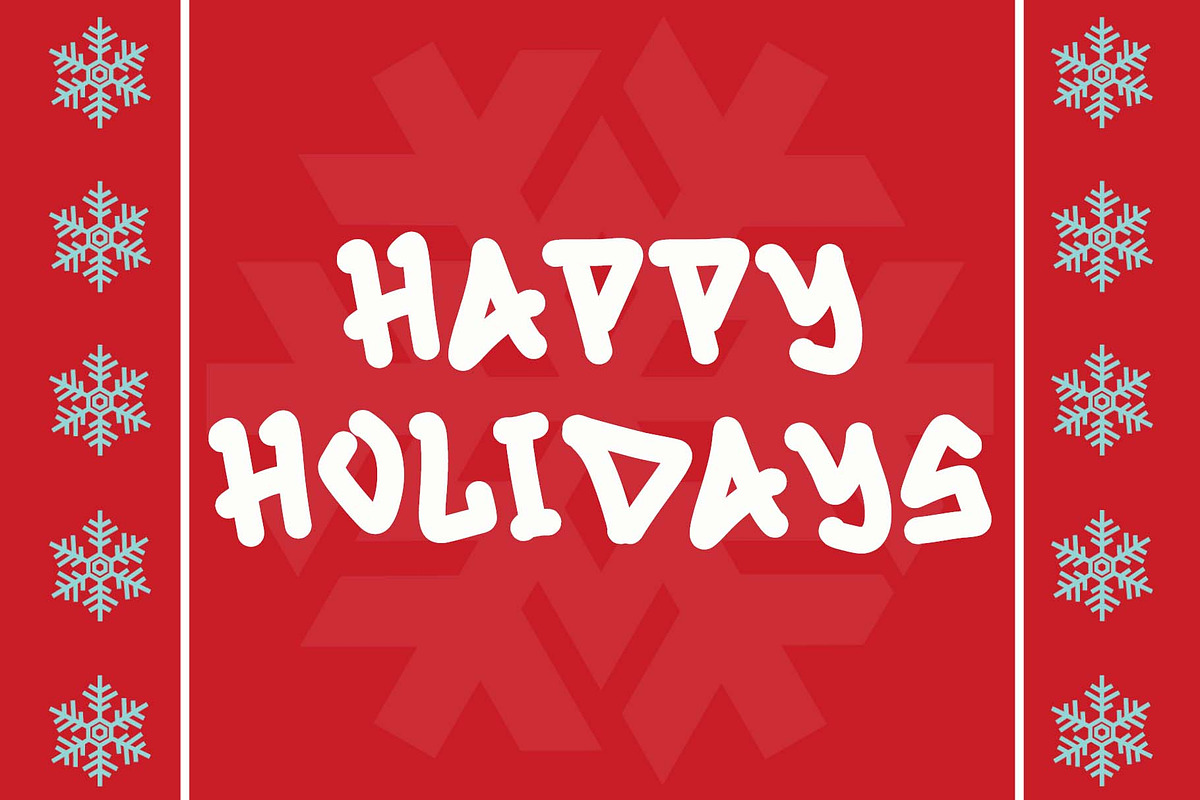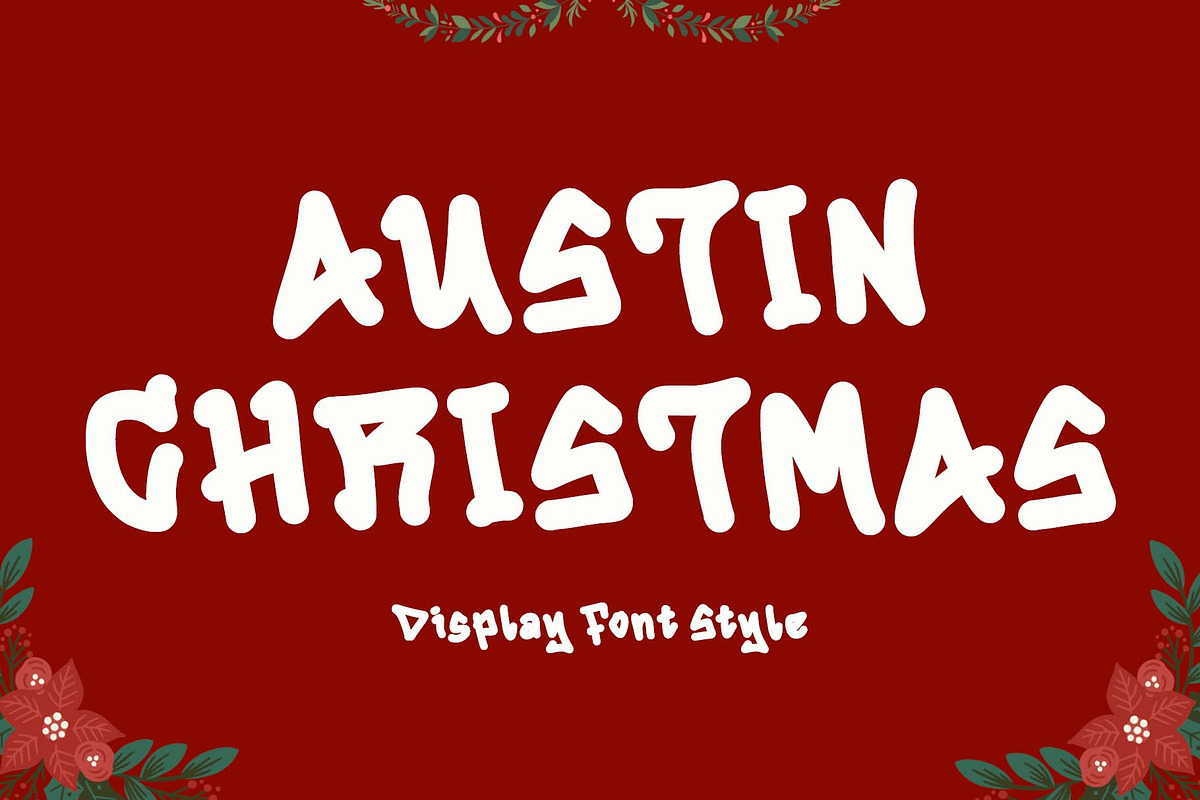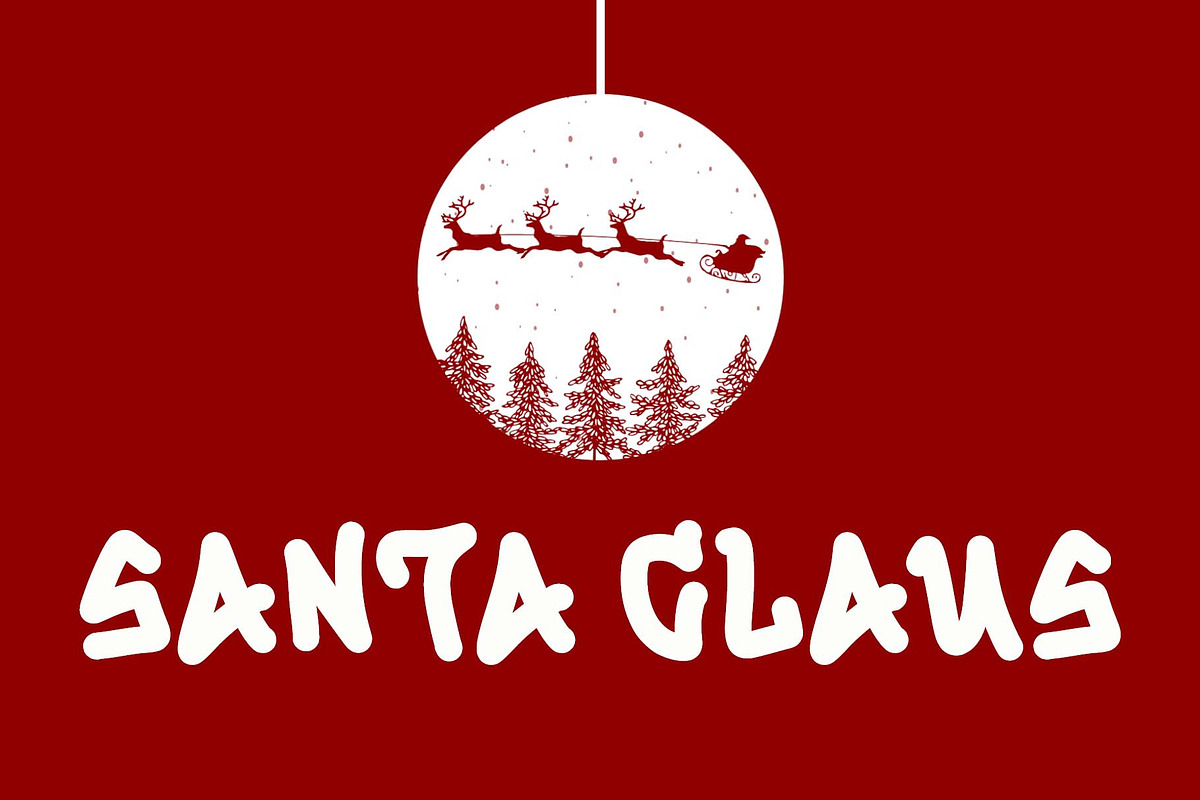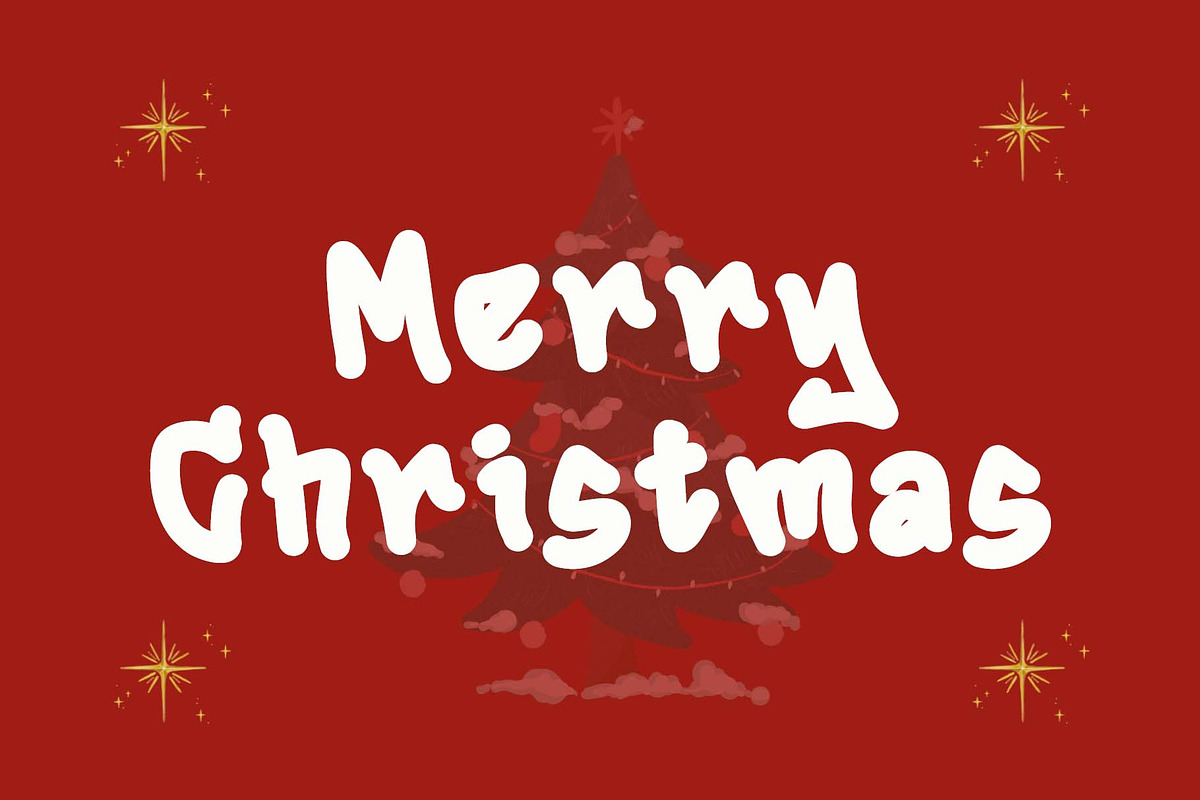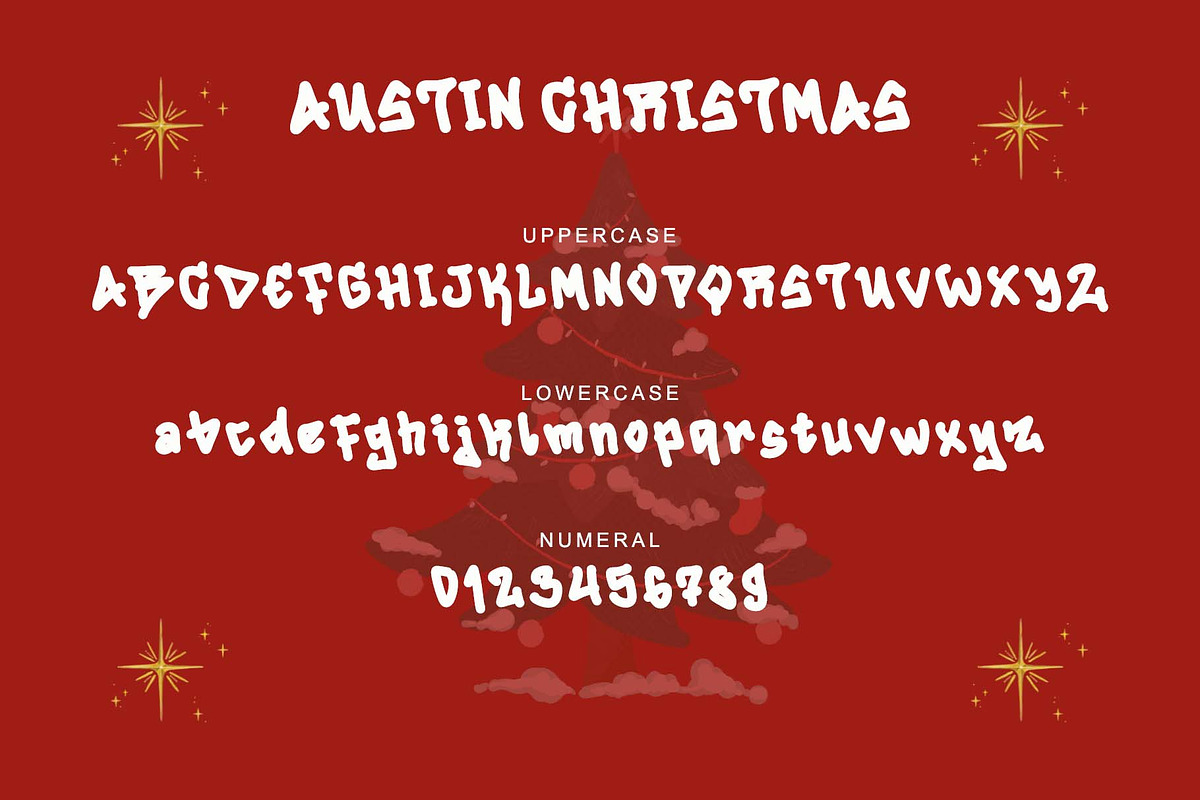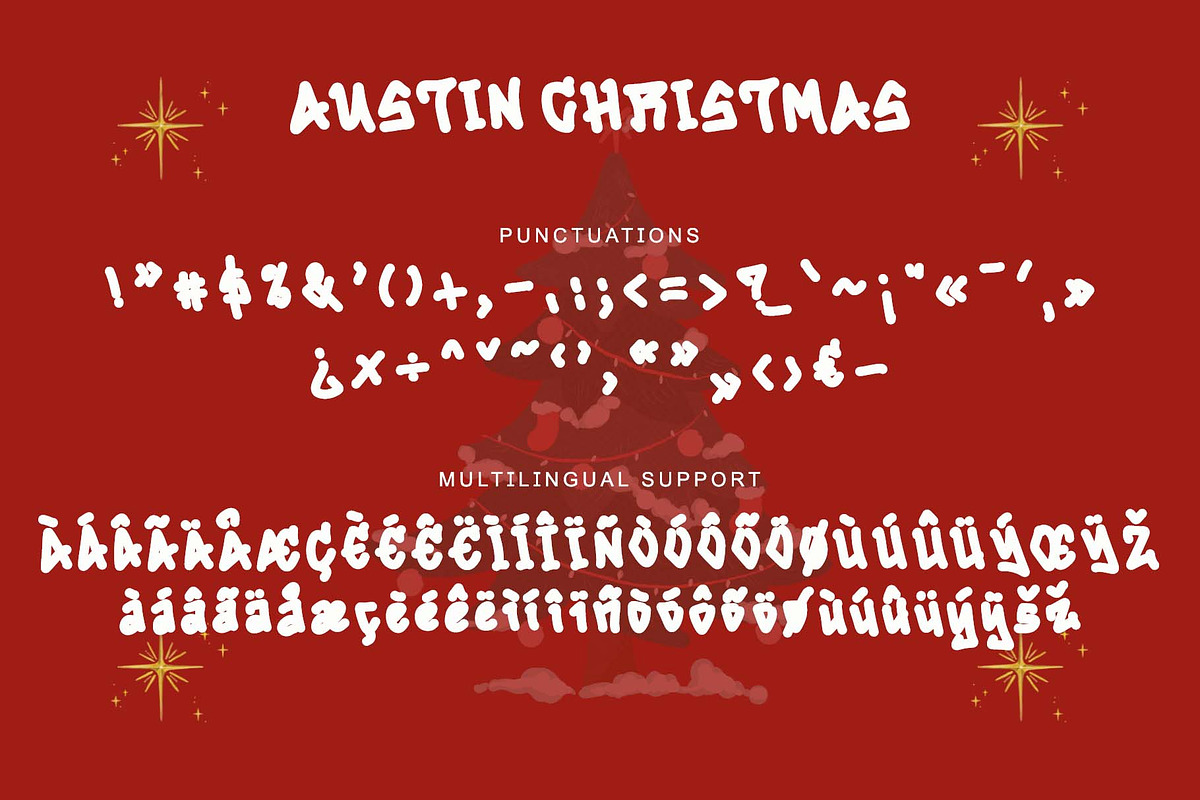
Austin Christmas
"Austin Christmas" is a unique and elegant display font. This font is equipped with uppercase, lowercase, numerals, punctuations and multilingual support. Very suitable for Christmas, summer, Halloween, spring, teachers, back to school, father's day, mother's day and others.